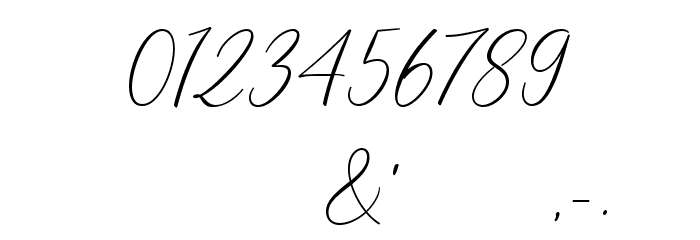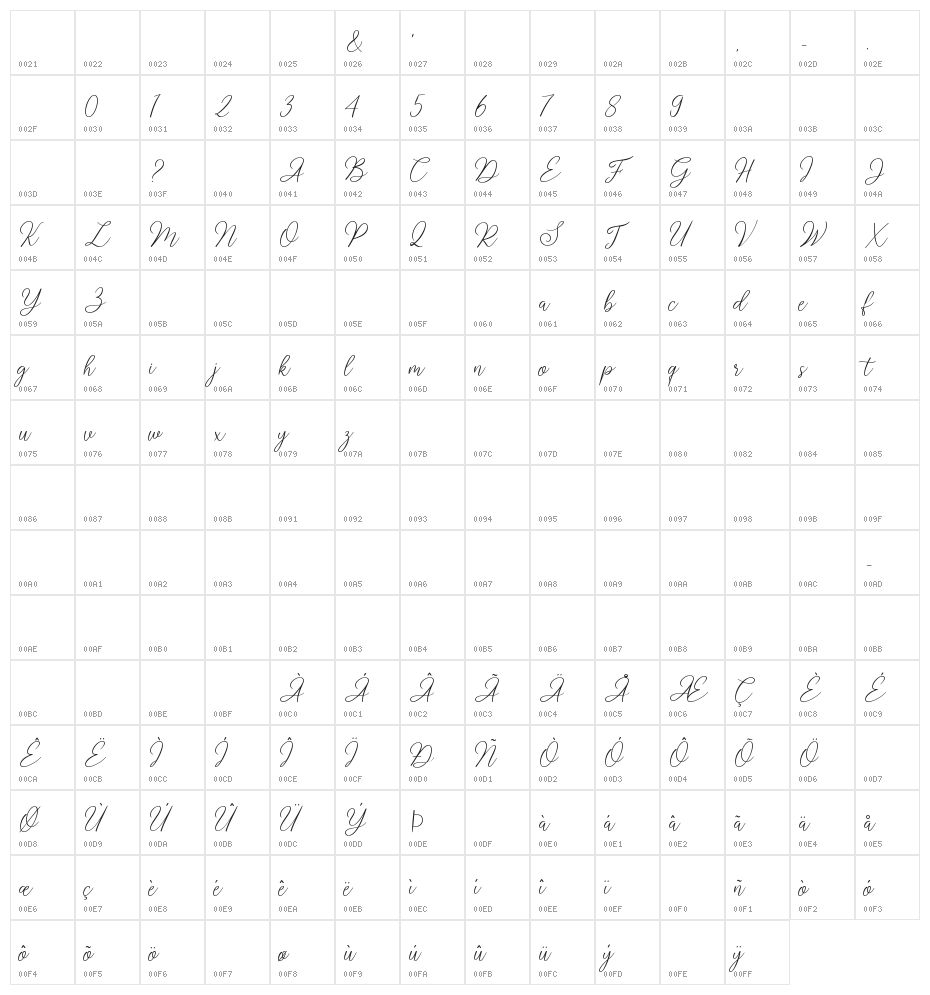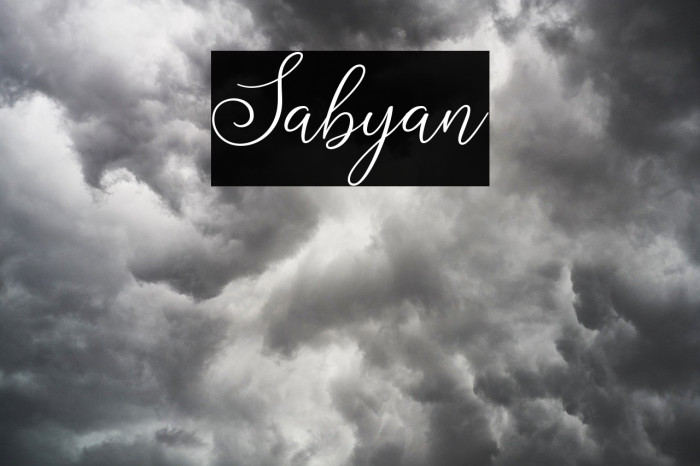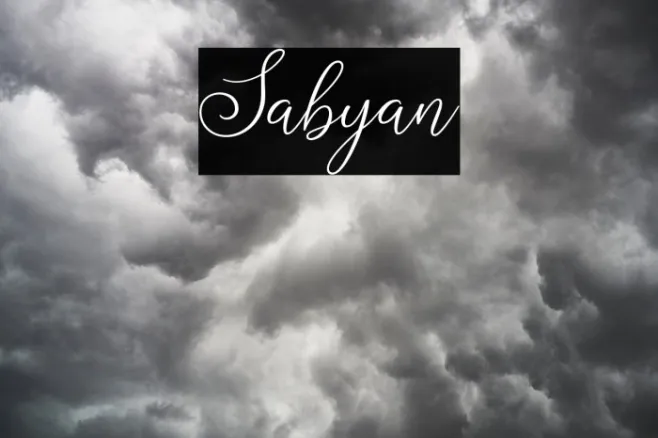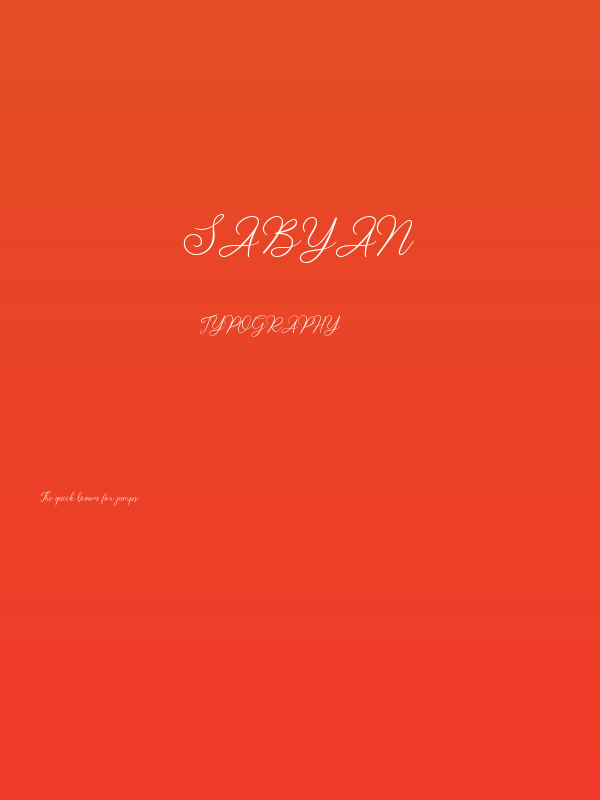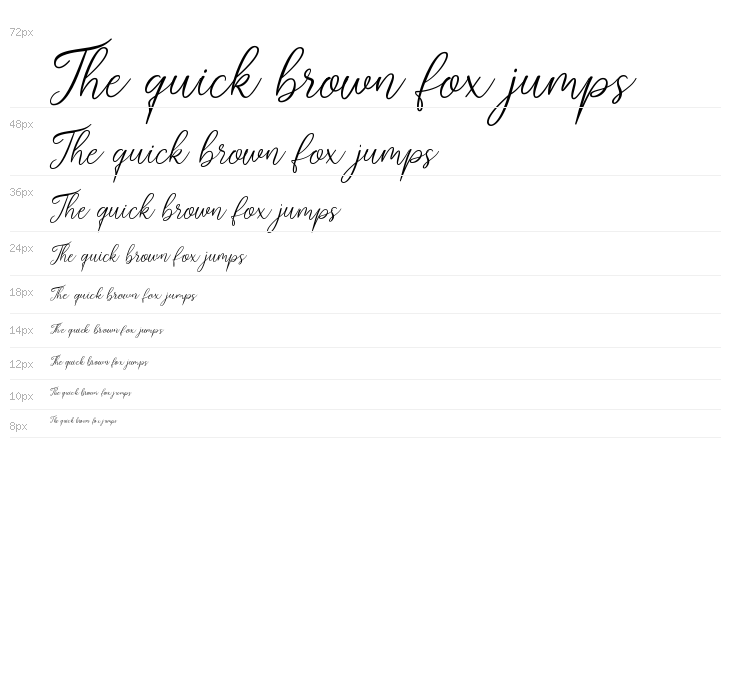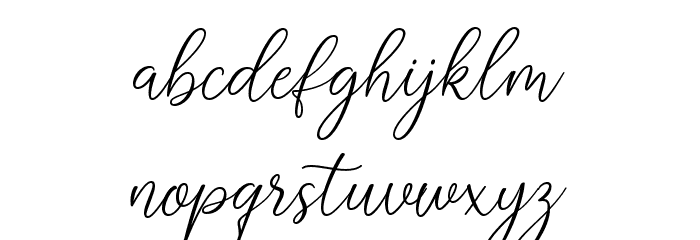
Sabyan Font
Sabyan Description
This elegant script font features flowing, cursive letterforms that exude a sense of sophistication and grace. The uppercase letters are beautifully crafted with sweeping curves and delicate loops, while the lowercase letters maintain a consistent flow with slightly more restrained flourishes. The numerals are designed to complement the alphabet, maintaining the same fluid style. Special characters like the ampersand and apostrophe are thoughtfully integrated, enhancing the font's overall aesthetic. The font's delicate strokes and graceful curves make it ideal for projects that require a touch of elegance and refinement.